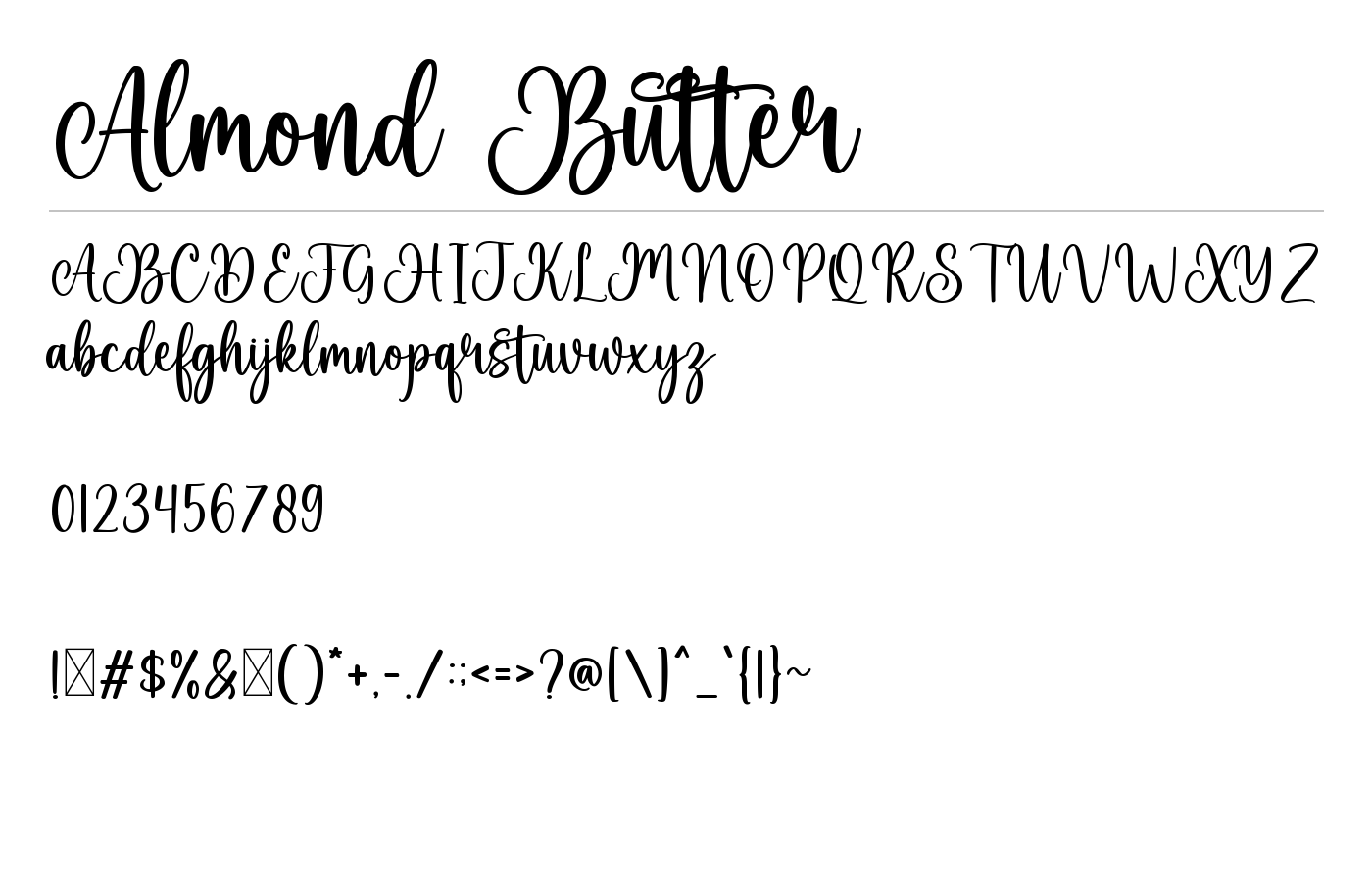
Almond Butter is a charming script font with a graceful, flowing style that feels warm and inviting. Its combination of thick and thin strokes along with playful loops and swashes gives it a handwritten, elegant personality perfect for adding a personal touch to branding, invitations, and creative projects. Ideal for logos, headlines, and packaging, this font brings a stylish yet approachable vibe that works beautifully in both casual and refined contexts.
Almond Butter Font
About Almond Butter Font